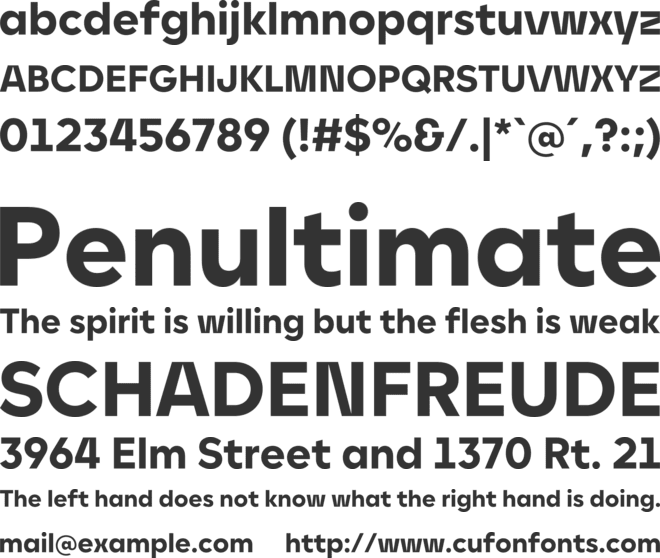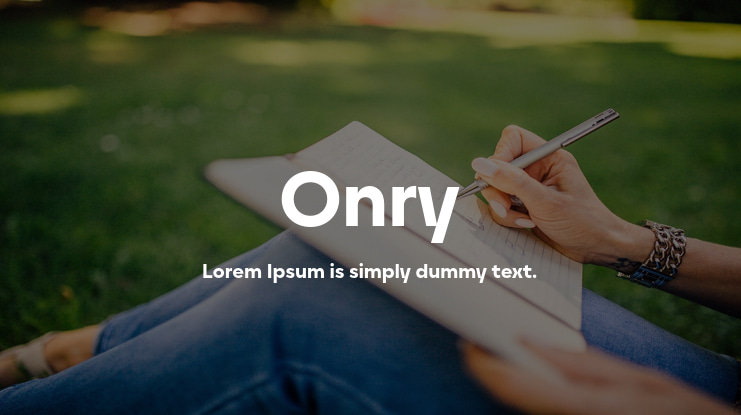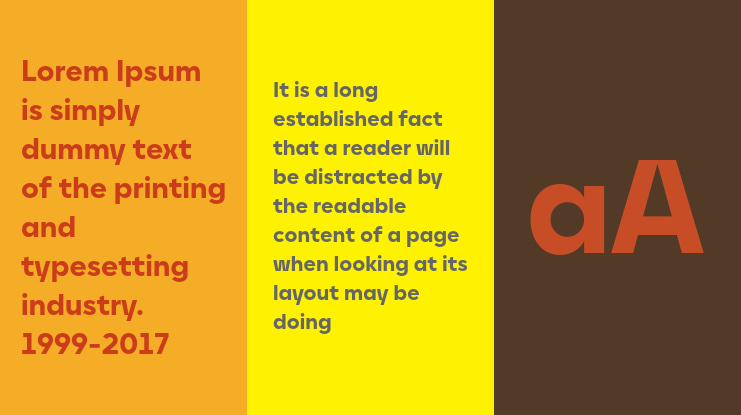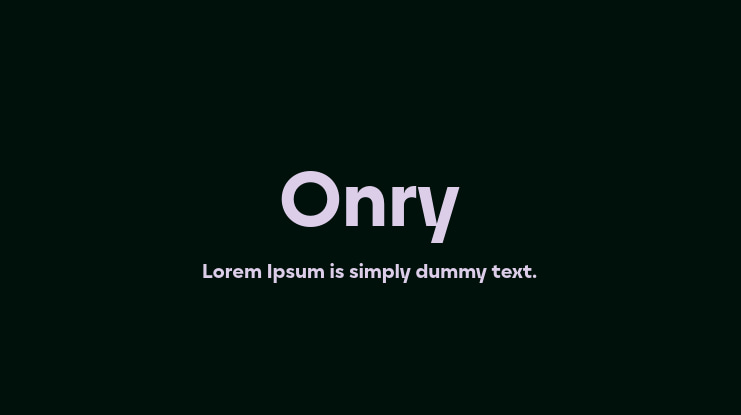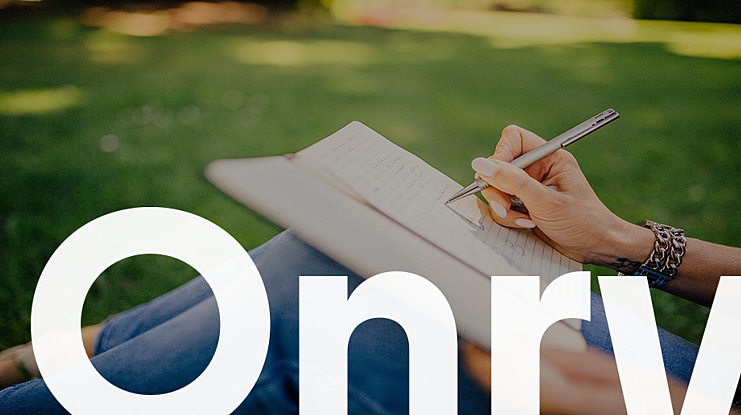
Onry Font
This is a contemporary sans serif display font family crafted & designed by NicolassFonts. It comes in 20 weights, 10 uprights, and matching italics. The ExtraBold weight is free of charge.
This font family can be used as a headline or as a body copy typeface. The font features excellent legibility for print, as it does for reproduction on TV screens.